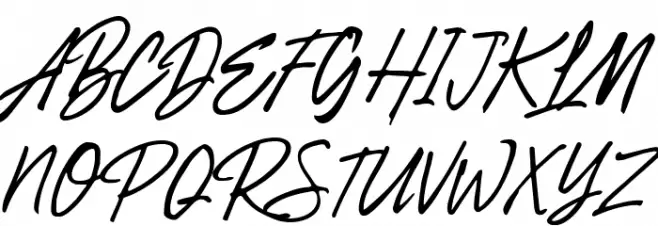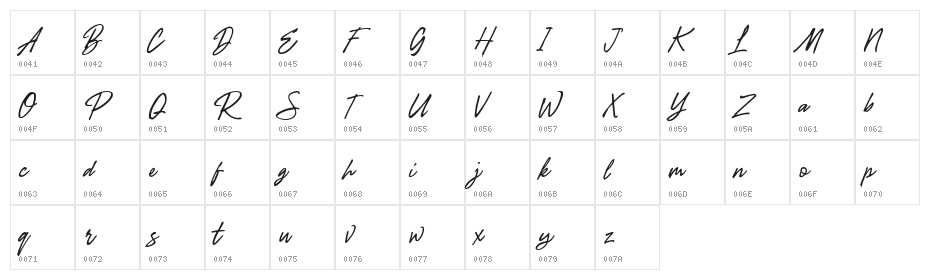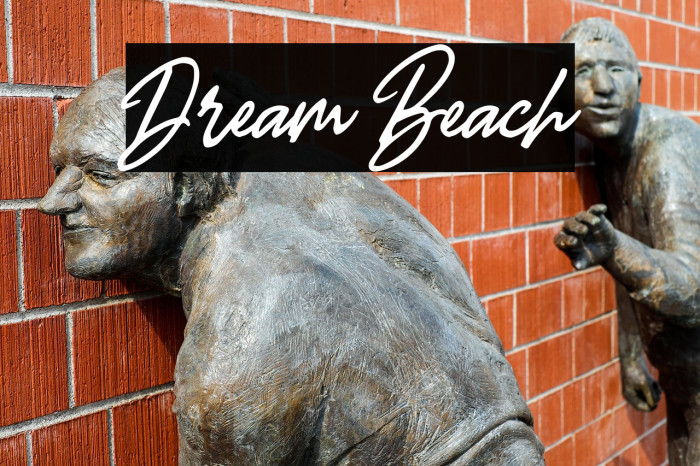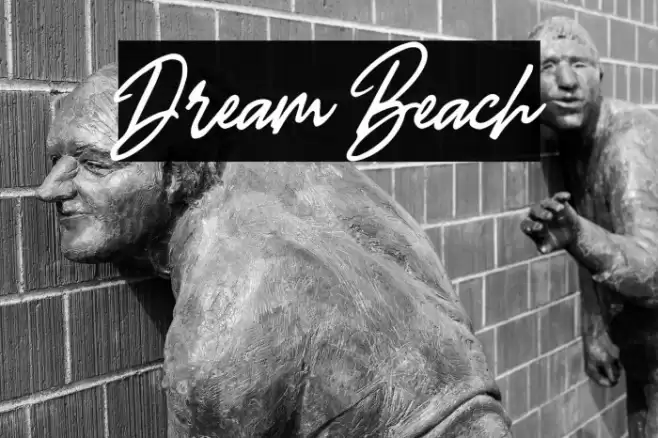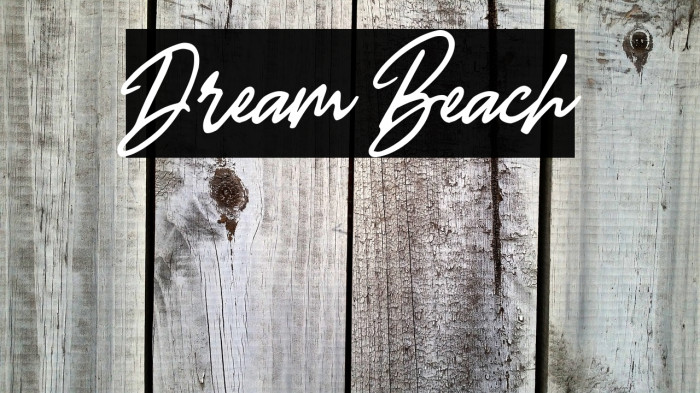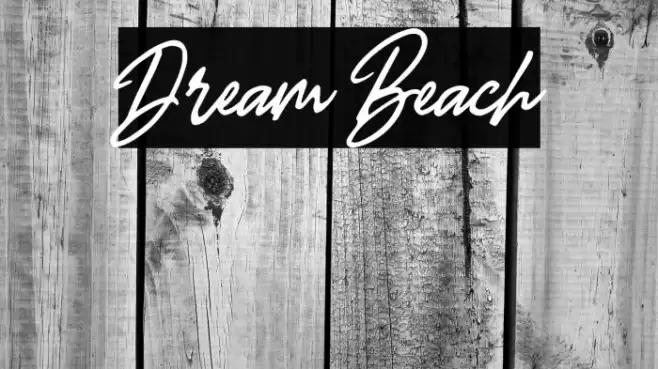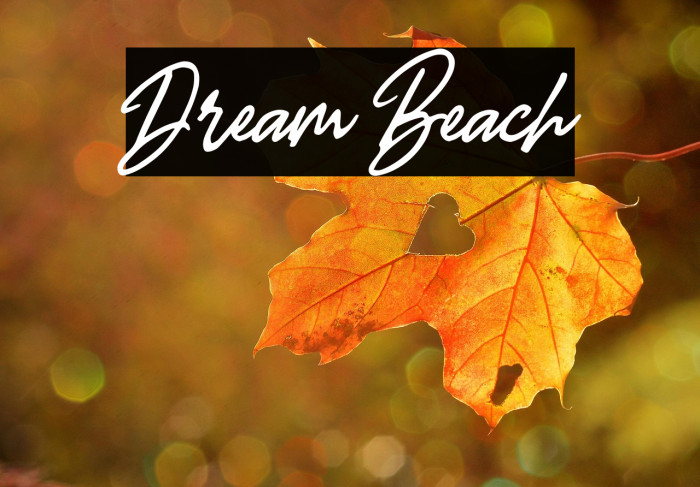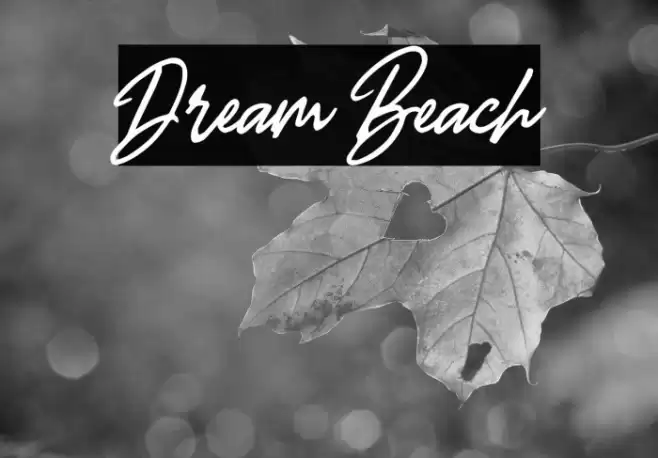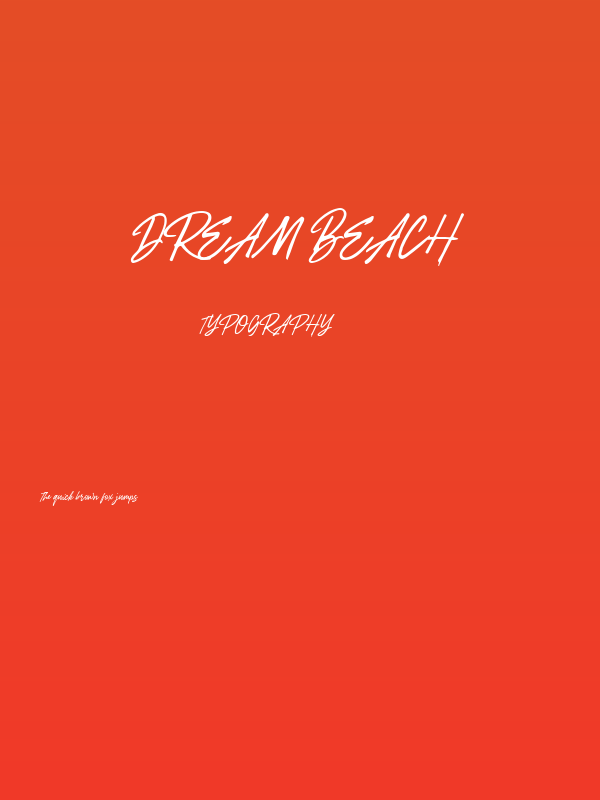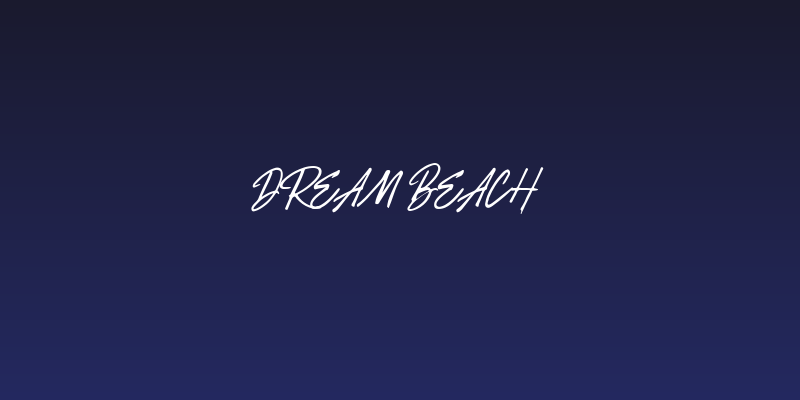
Dream Beach Font
Dream Beach Description
This font features a dynamic and flowing script style, reminiscent of handwritten calligraphy. The letters are elegantly connected, with a slight slant that adds to its casual yet sophisticated appearance. The strokes vary in thickness, providing a natural and organic feel, while maintaining legibility. Its playful and artistic flair makes it suitable for creative projects. The uppercase letters are bold and prominent, while the lowercase letters maintain a consistent rhythm, enhancing the overall aesthetic. This font exudes a sense of freedom and creativity, perfect for designs that require a personal touch.